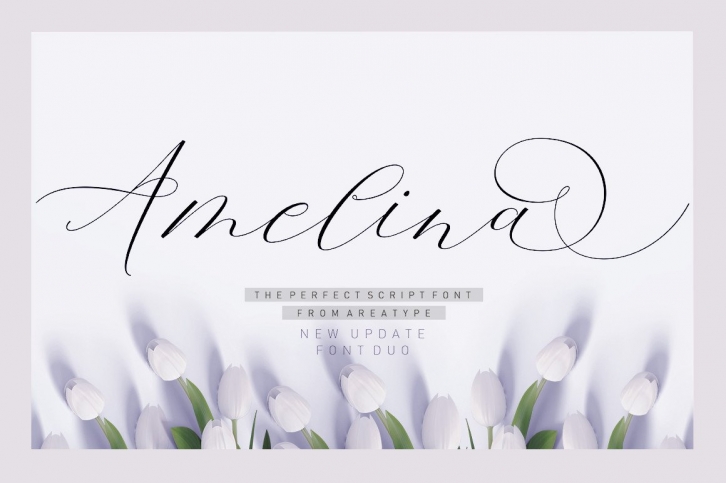
Amelina is a lovely duo script font. It looks beautiful on a variety of designs requiring a personalized style, such as wedding invitations, thank you cards, greeting cards, logos, and so on.
It is also PUA encoded which means you can access all of the glyphs and swashes with ease!